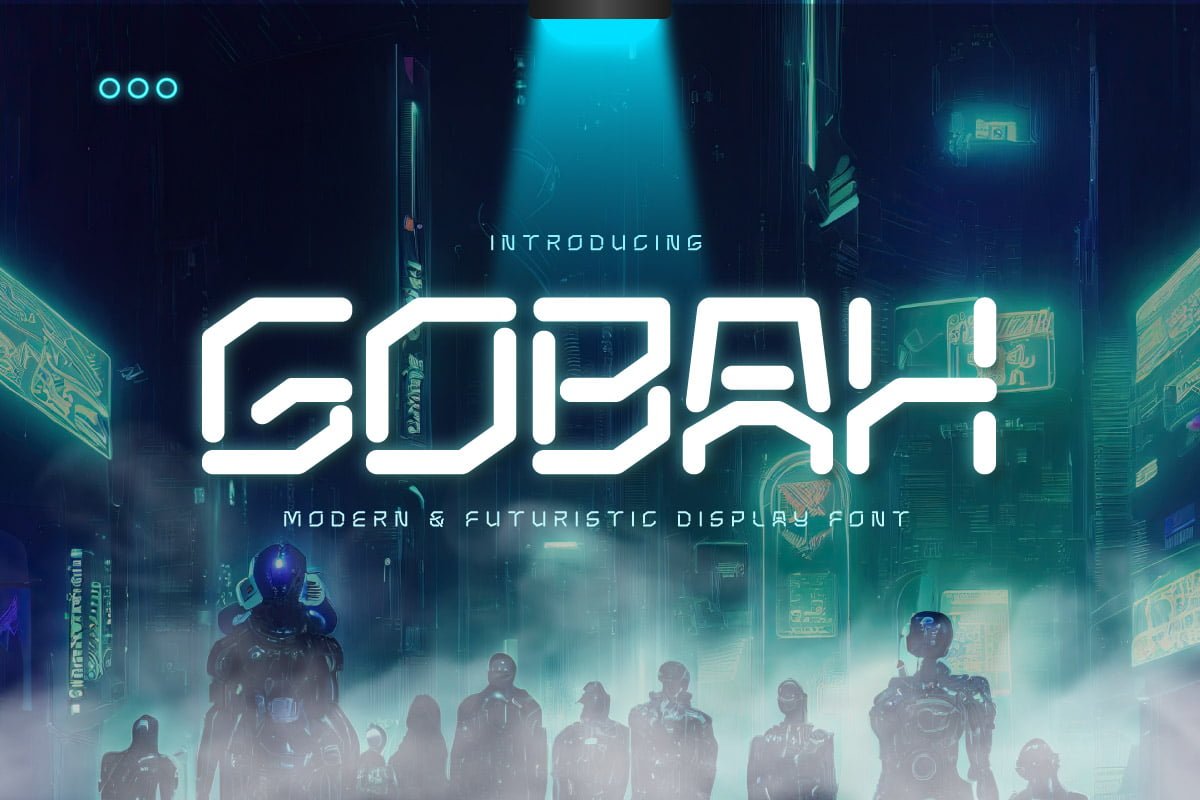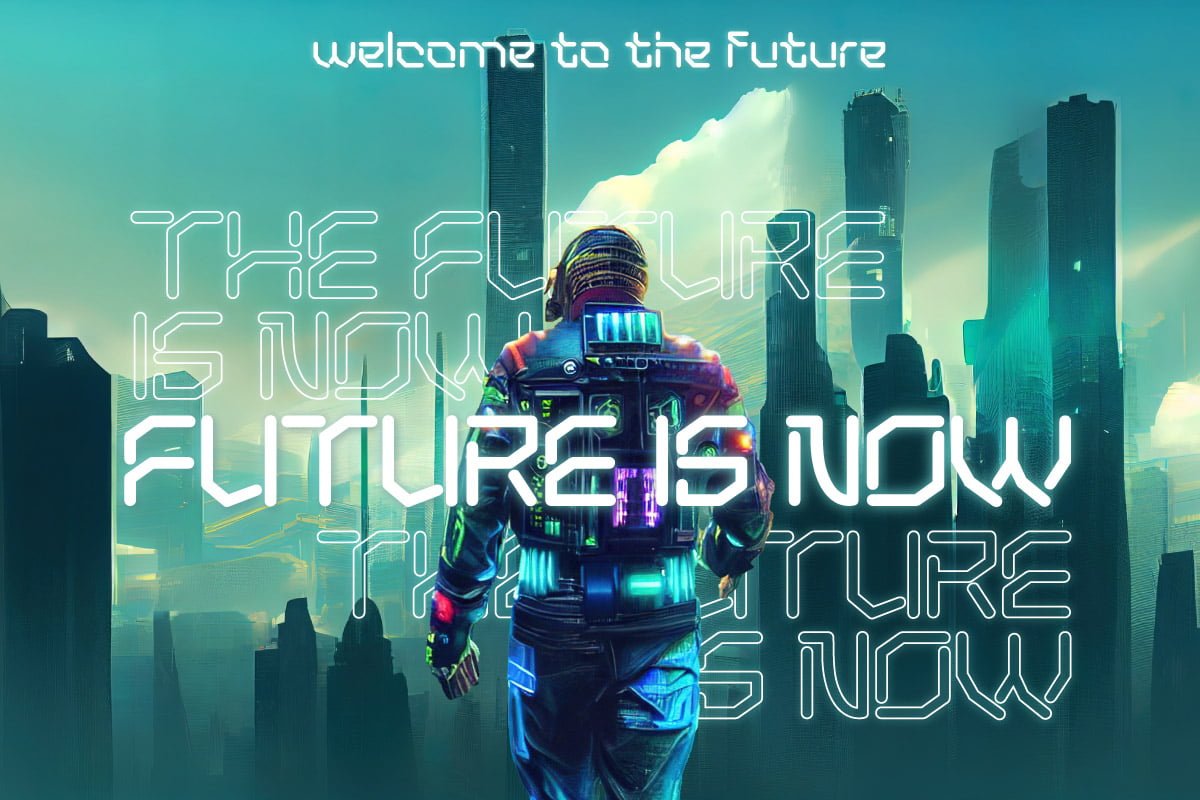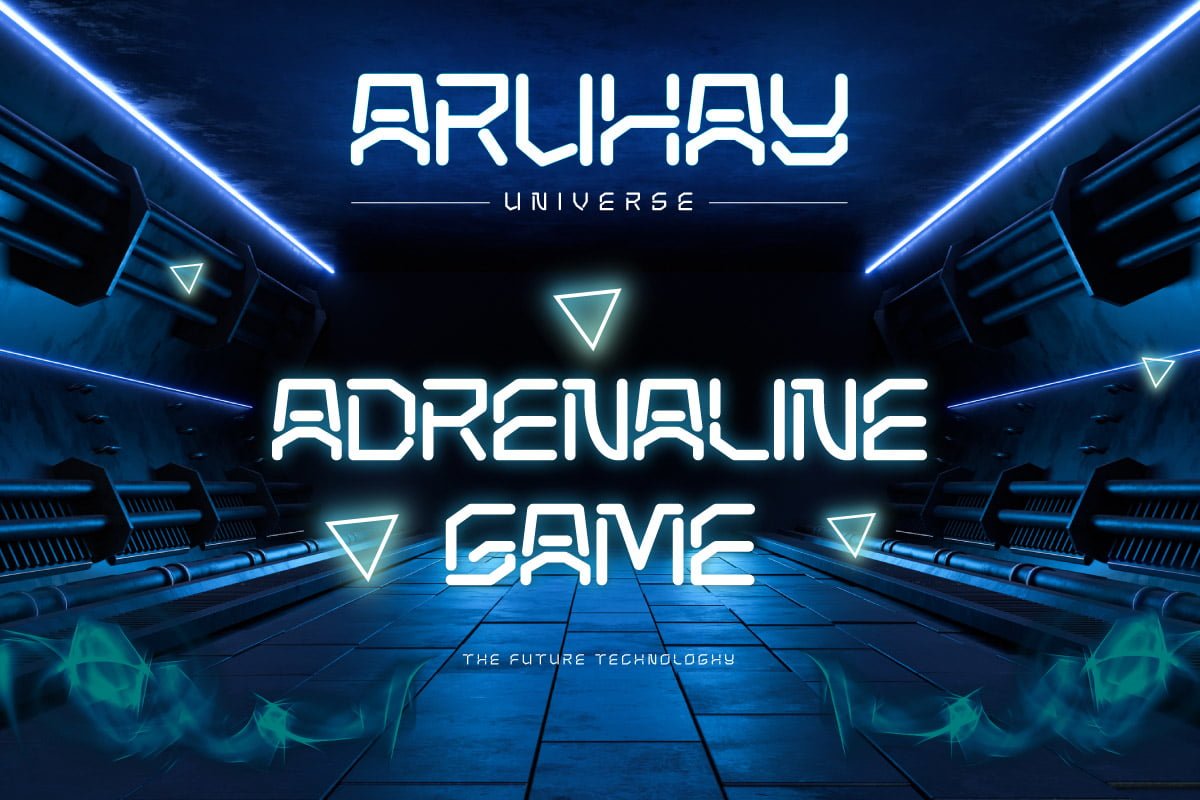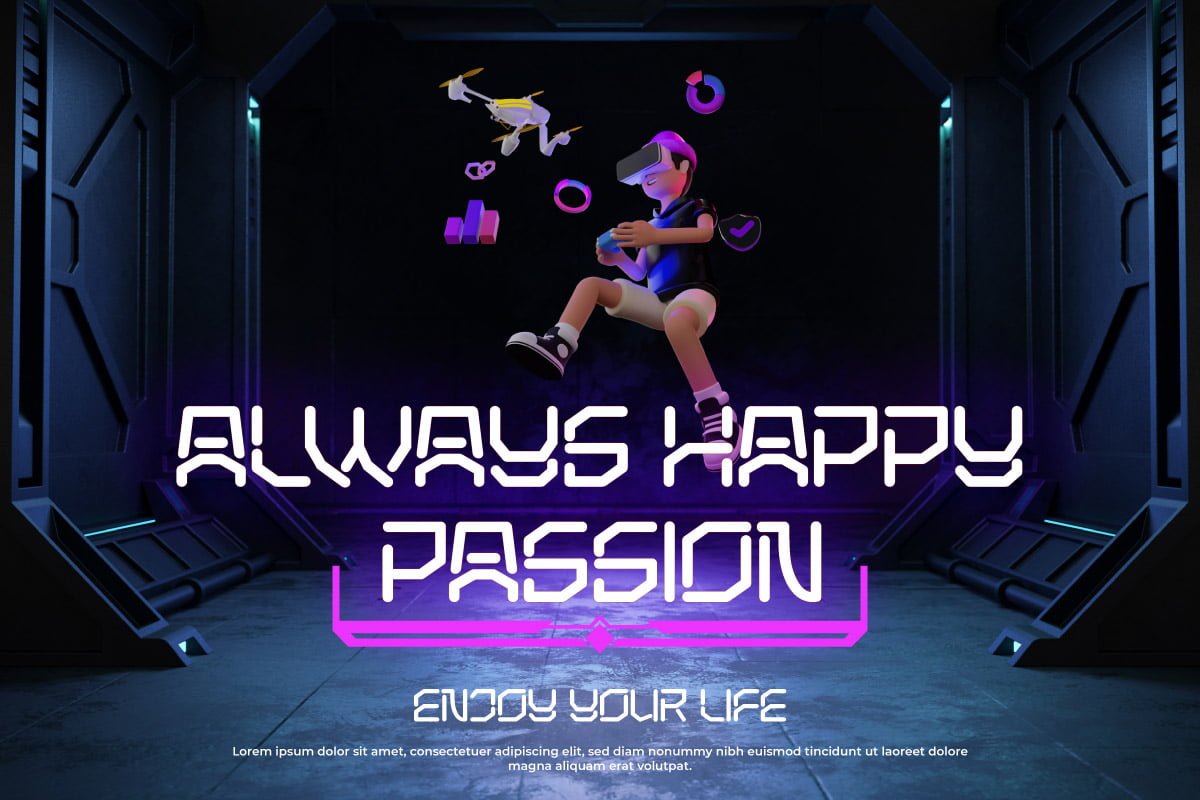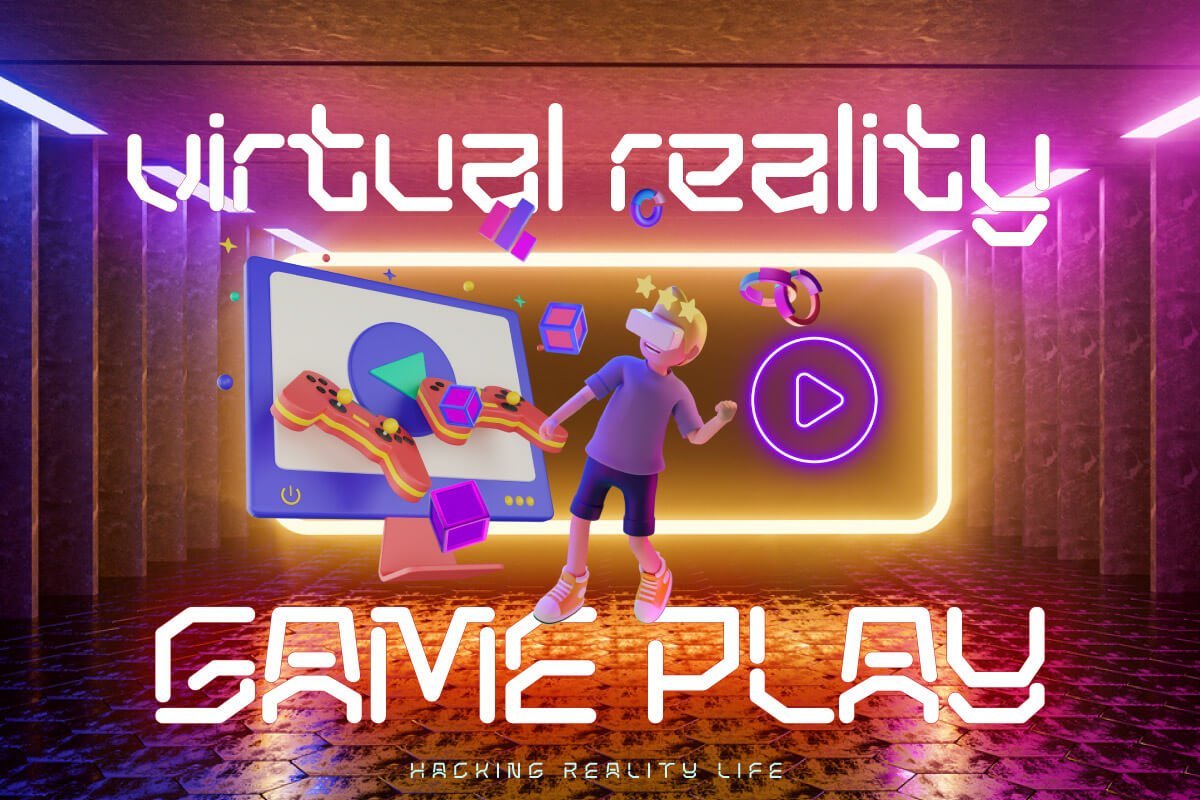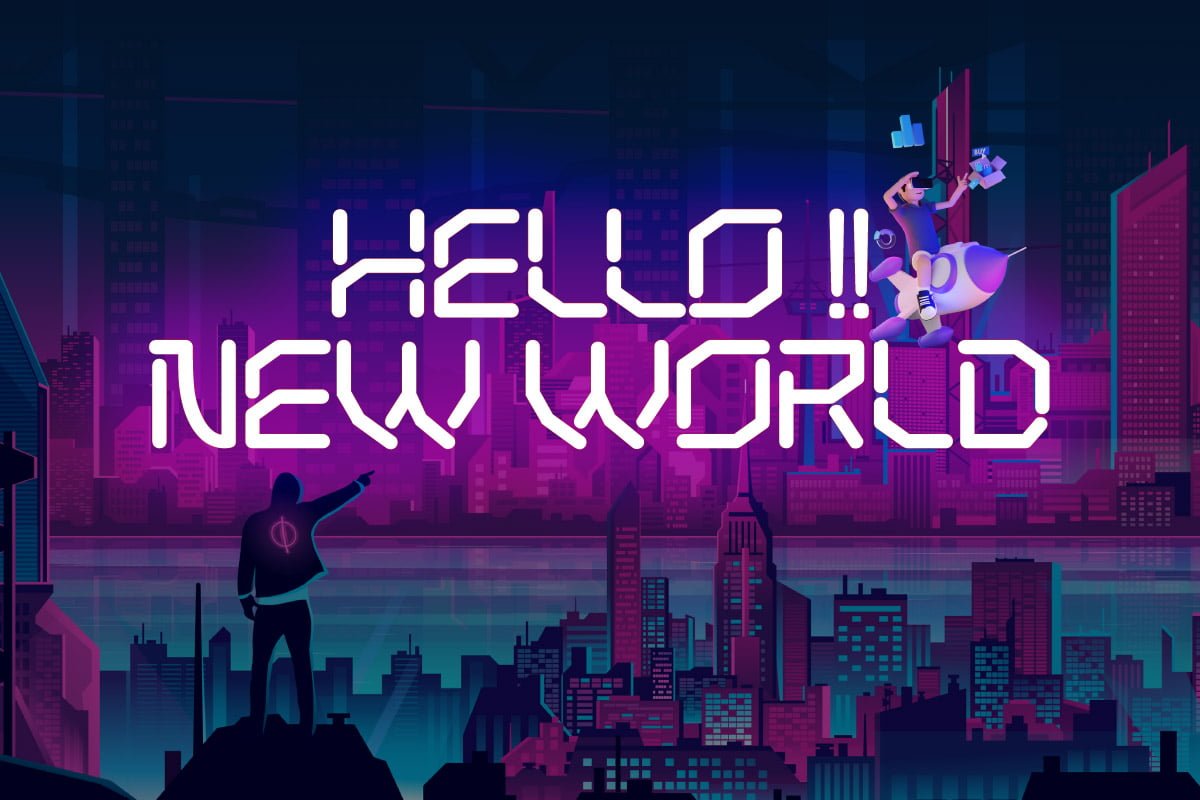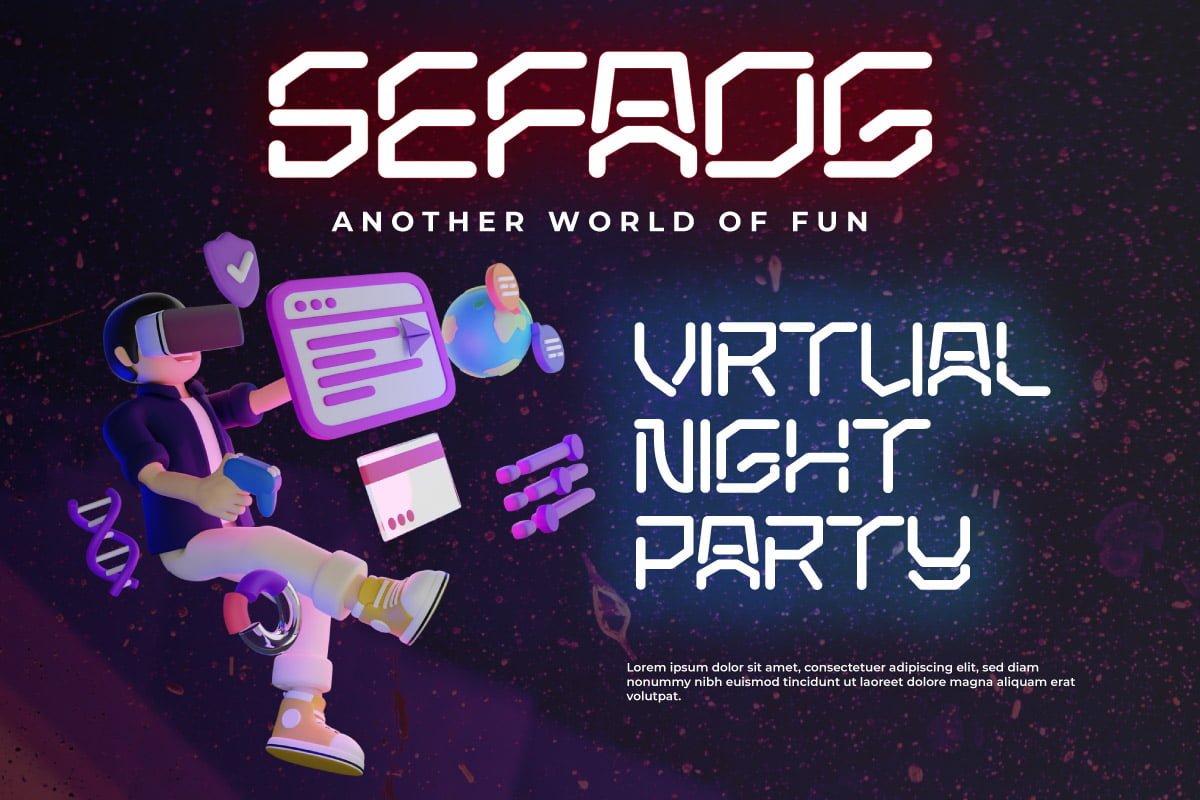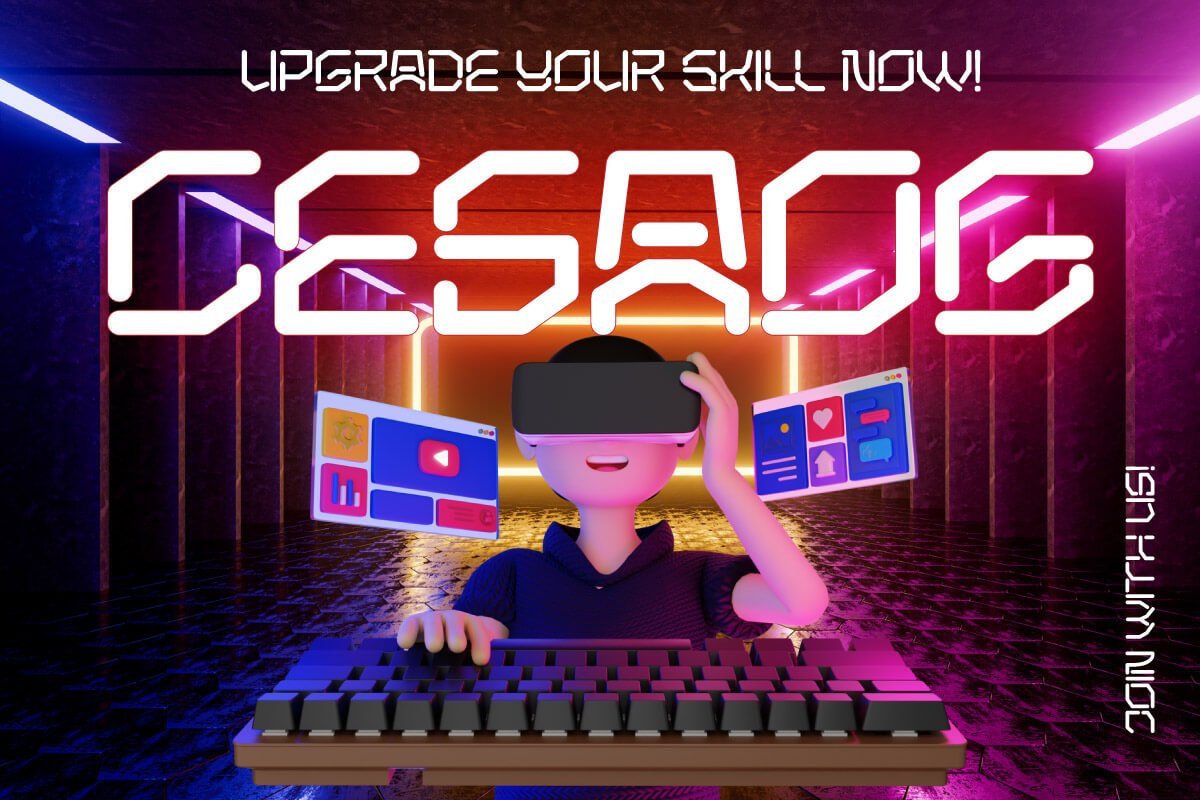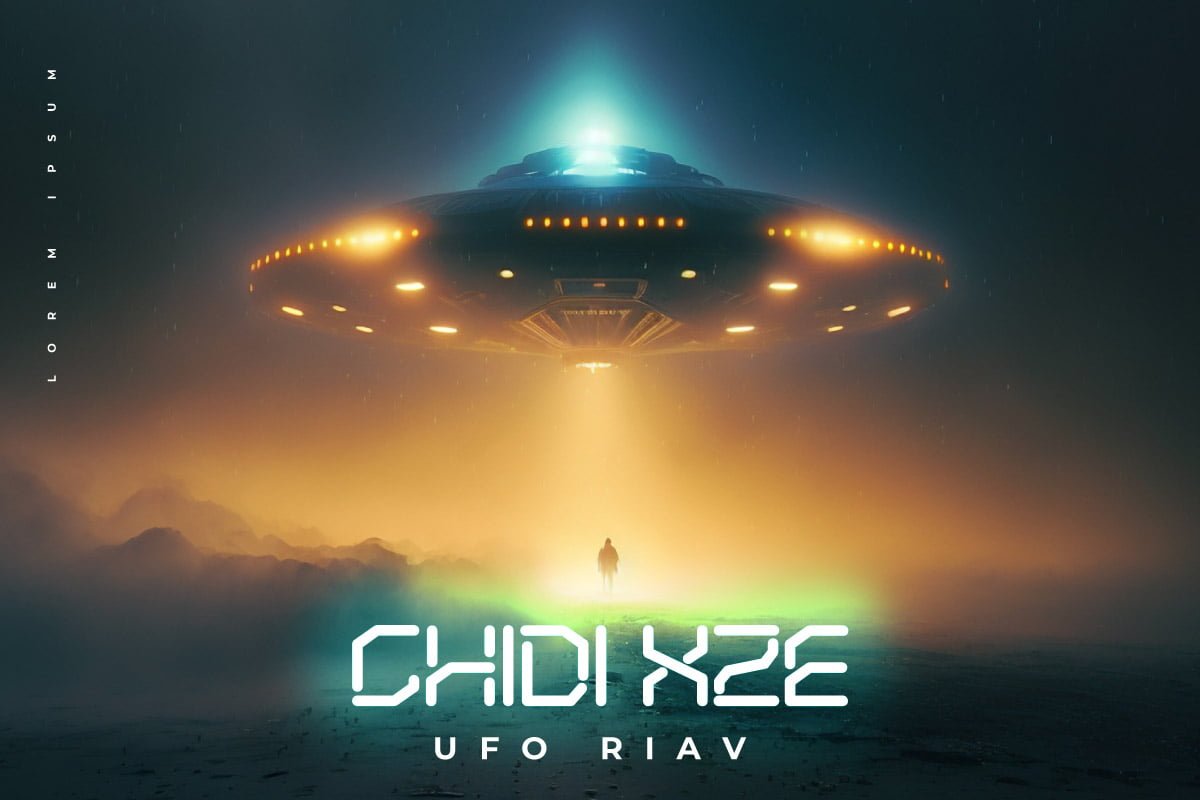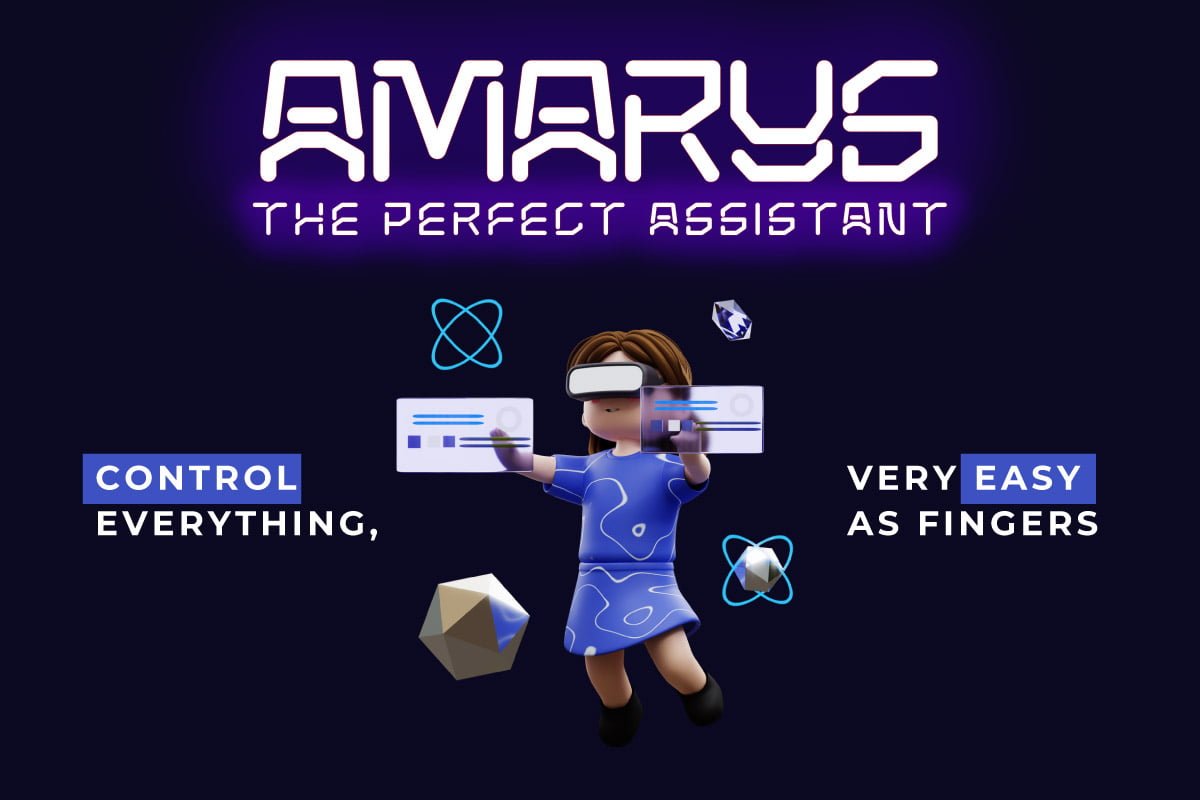
GOBAH – Futuristic Font
Welcome to Gobah, a font that presents the future atmosphere in an amazingly modern and futuristic style. Are you looking for the perfect solution for modern, futuristic, sci-fi, and future-themed projects? Gobah is the right choice.
Gobah is a font that transports you to an extraordinary world with a unique look that reflects a sophisticated future feel. Each letter is uniquely designed, giving your project a modern, innovative, and charming look. With Gobah, you can steal the show and create an unforgettable impression.
The main benefit of Gobah is its ability to deliver stunning styles. Each letter has an exclusive design, creating an eye-catching futuristic look. This font will give your projects a strong visual appeal, reinforcing the message you want to convey.
Gobah also supports multilingualism, allowing you to display text in multiple languages without a hitch. This flexibility ensures that you can easily reach a global audience and convey your message with consistent clarity across cultural contexts.
Take a step forward in your design with Gobah. This font will give a stunning modern and futuristic twist, creating a memorable impression on your logos, posters, and web presence. Let Gobah be the right choice for your vibrant, modern, futuristic, sci-fi, and future projects.